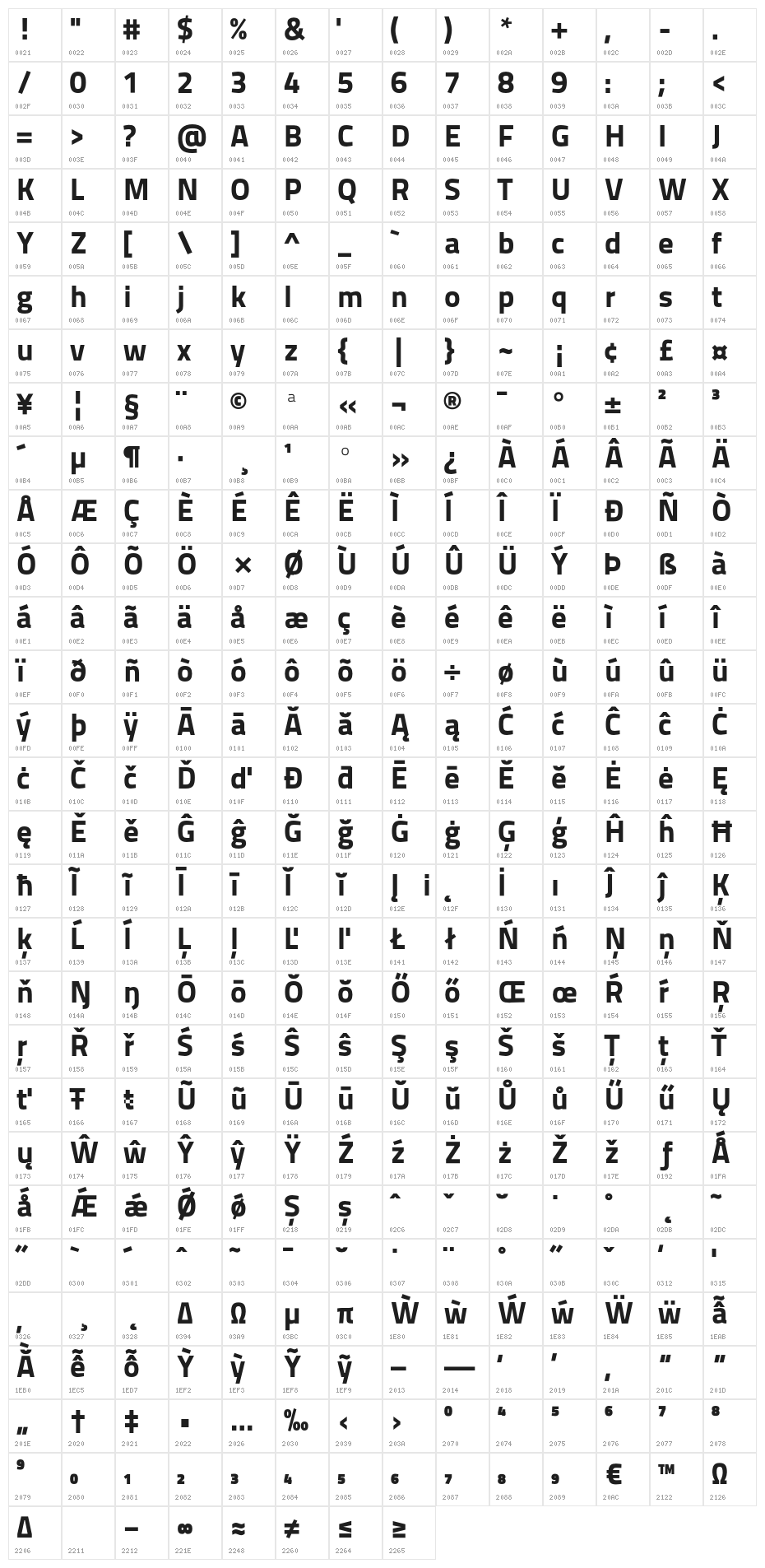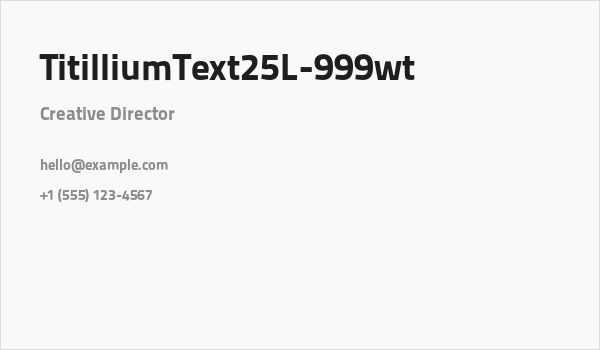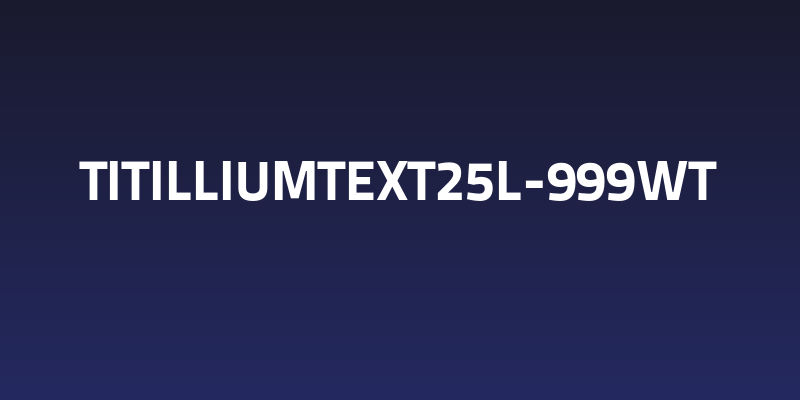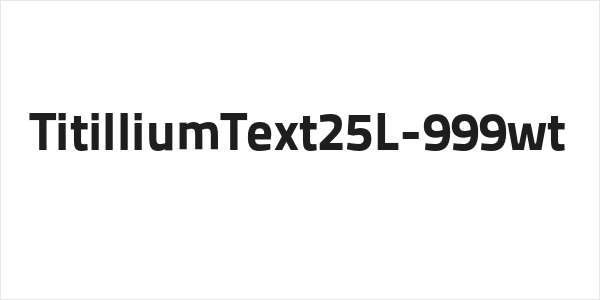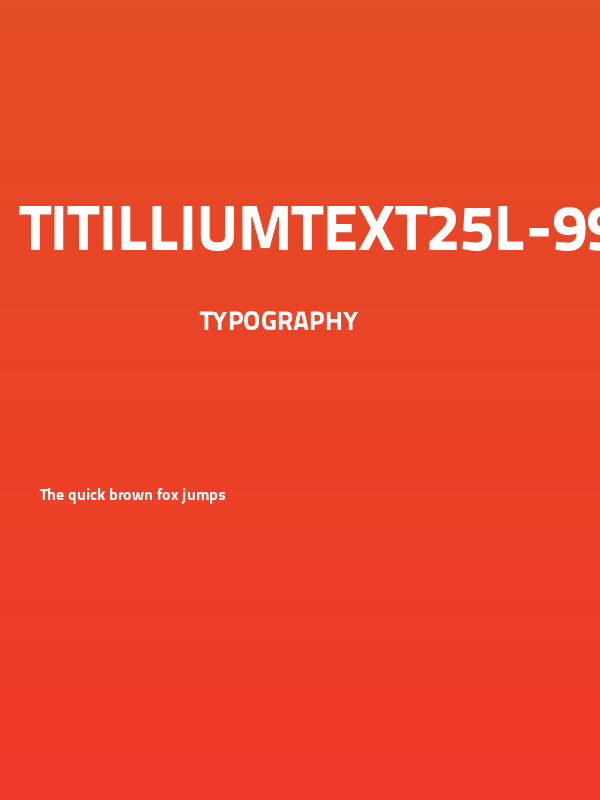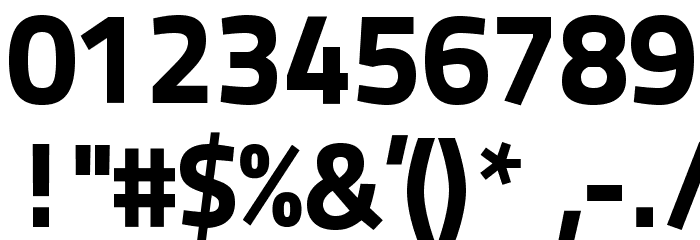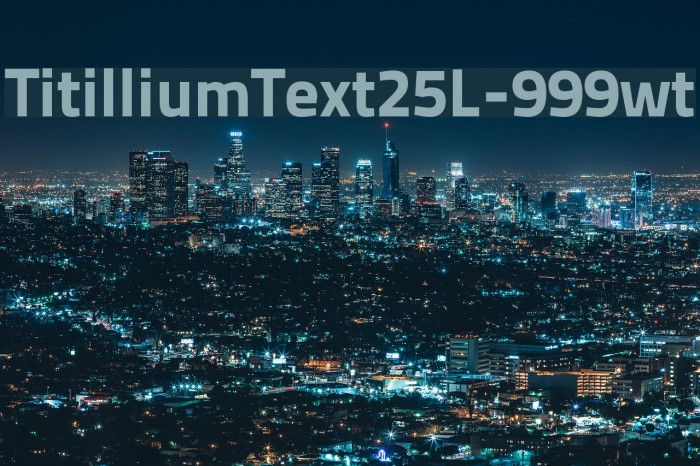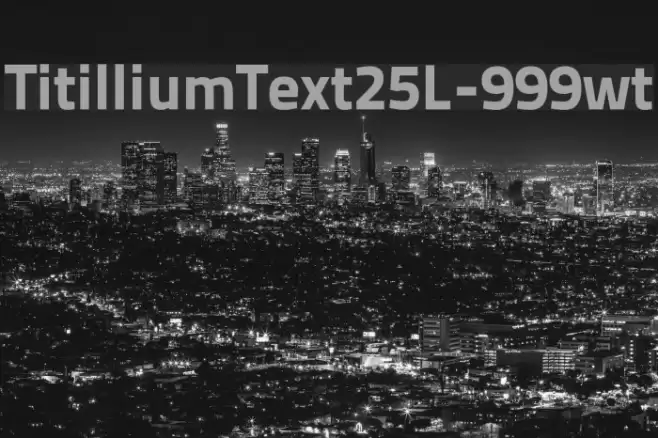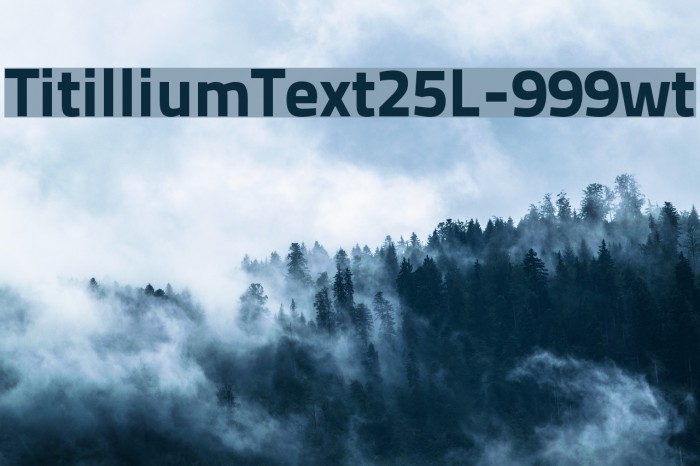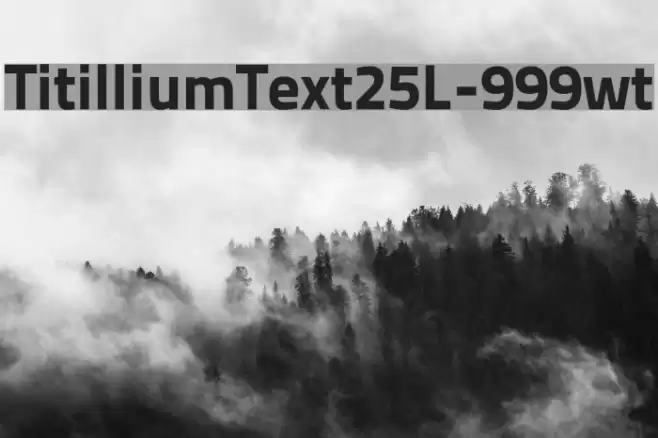
TitilliumText25L-999wt Font
TitilliumText25L-999wt Description
This font features a clean and modern sans-serif design with a strong geometric structure. The characters are bold and uniform, providing excellent readability. The uppercase letters are slightly taller than average, giving a commanding presence, while the lowercase letters maintain a consistent height that complements the uppercase. The numerals are clear and distinct, ensuring they stand out in any context. Special characters are well-defined, maintaining the overall aesthetic of the font. The design is versatile, making it suitable for a wide range of applications.
| Use Case | Headlines, Logos, Web design |
| Proposed Projects | Ideal for branding, advertising, web design, and print media where clarity and modernity are essential. |